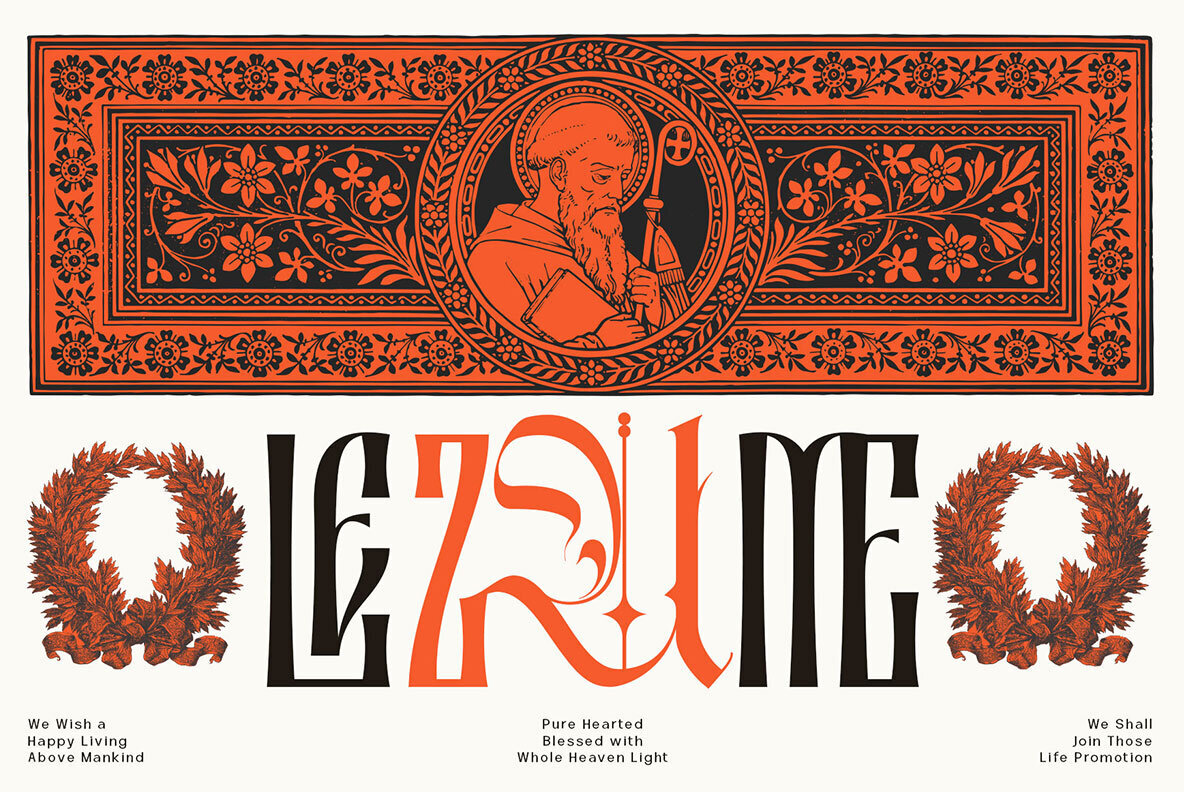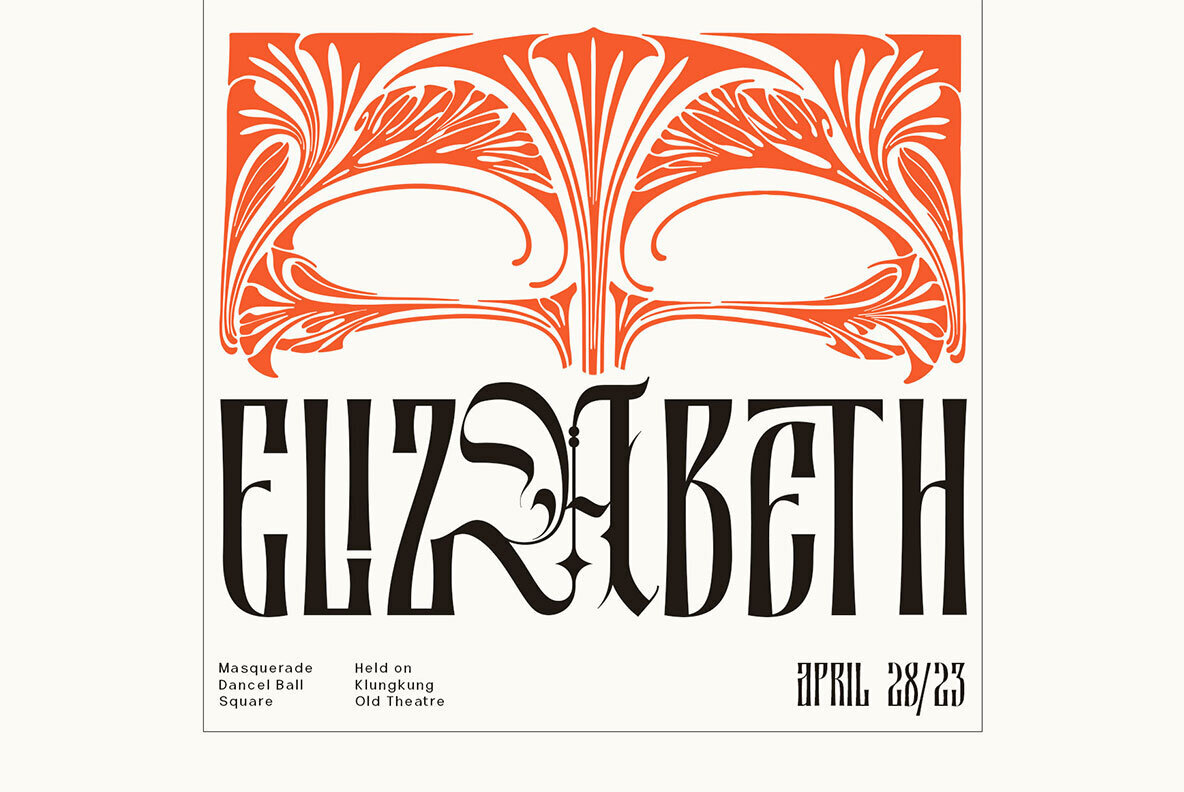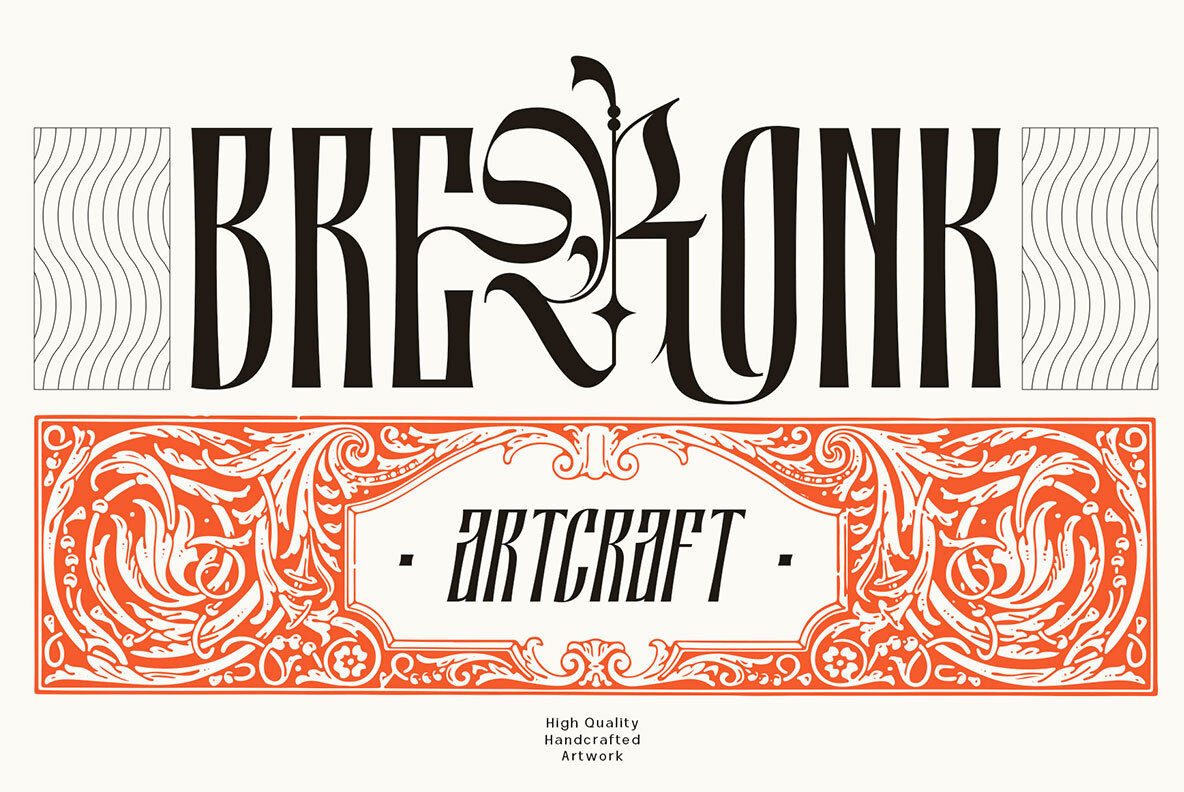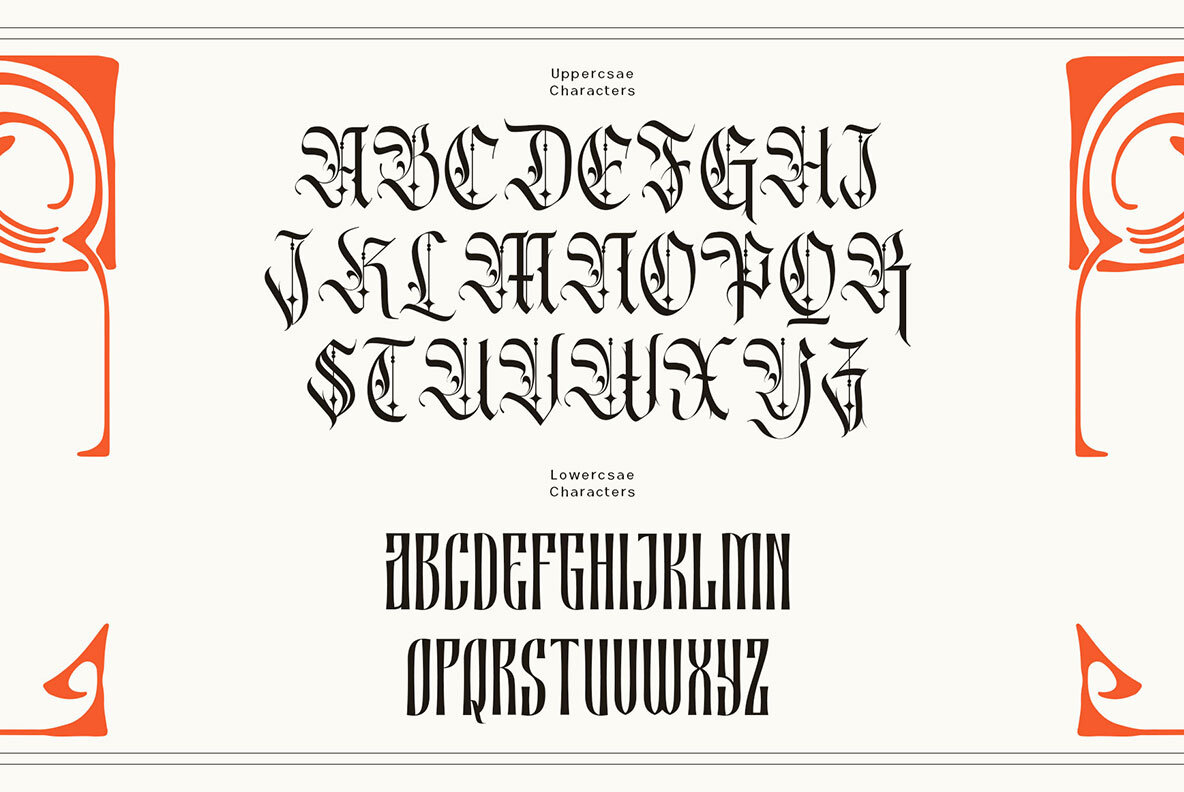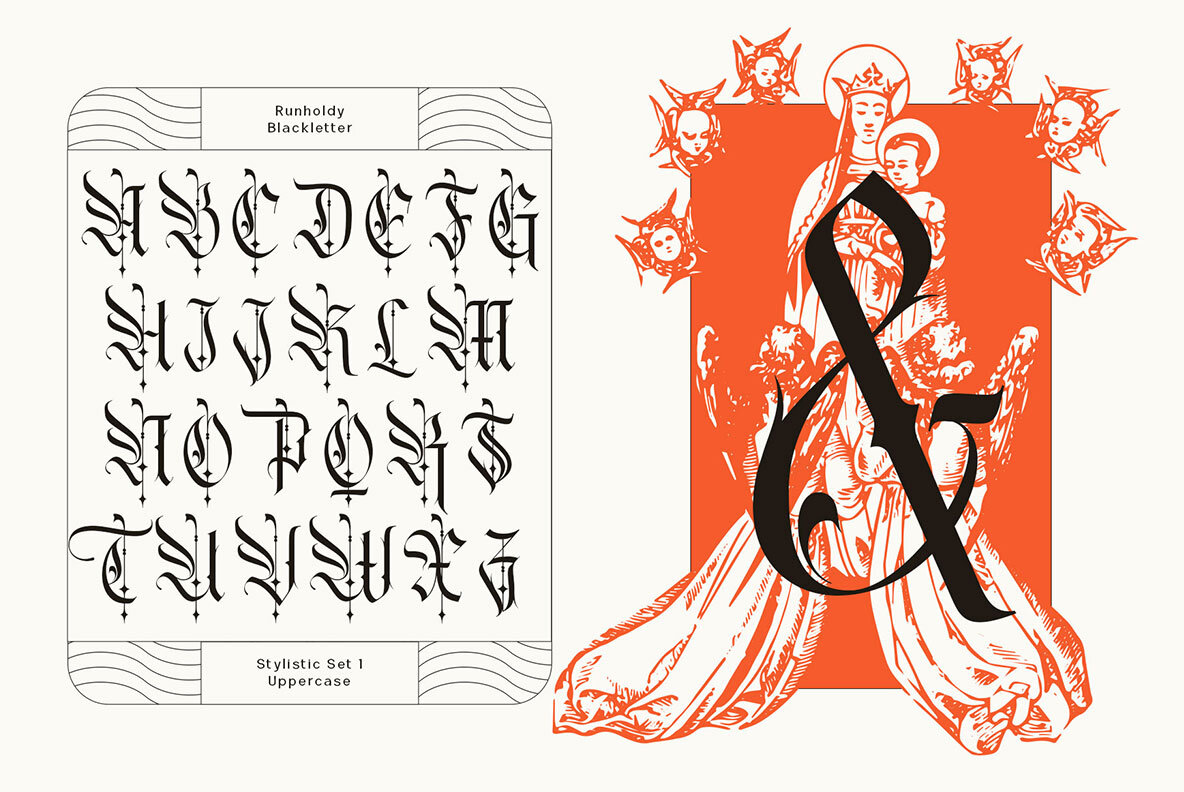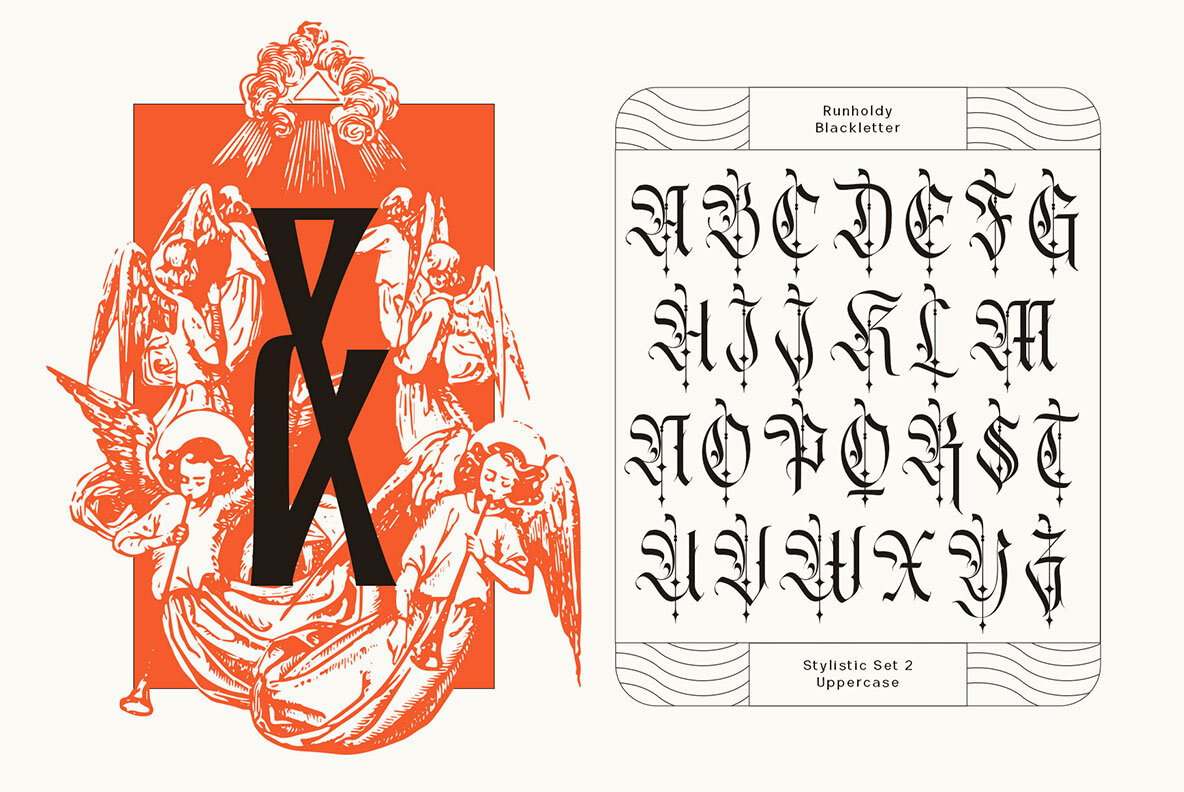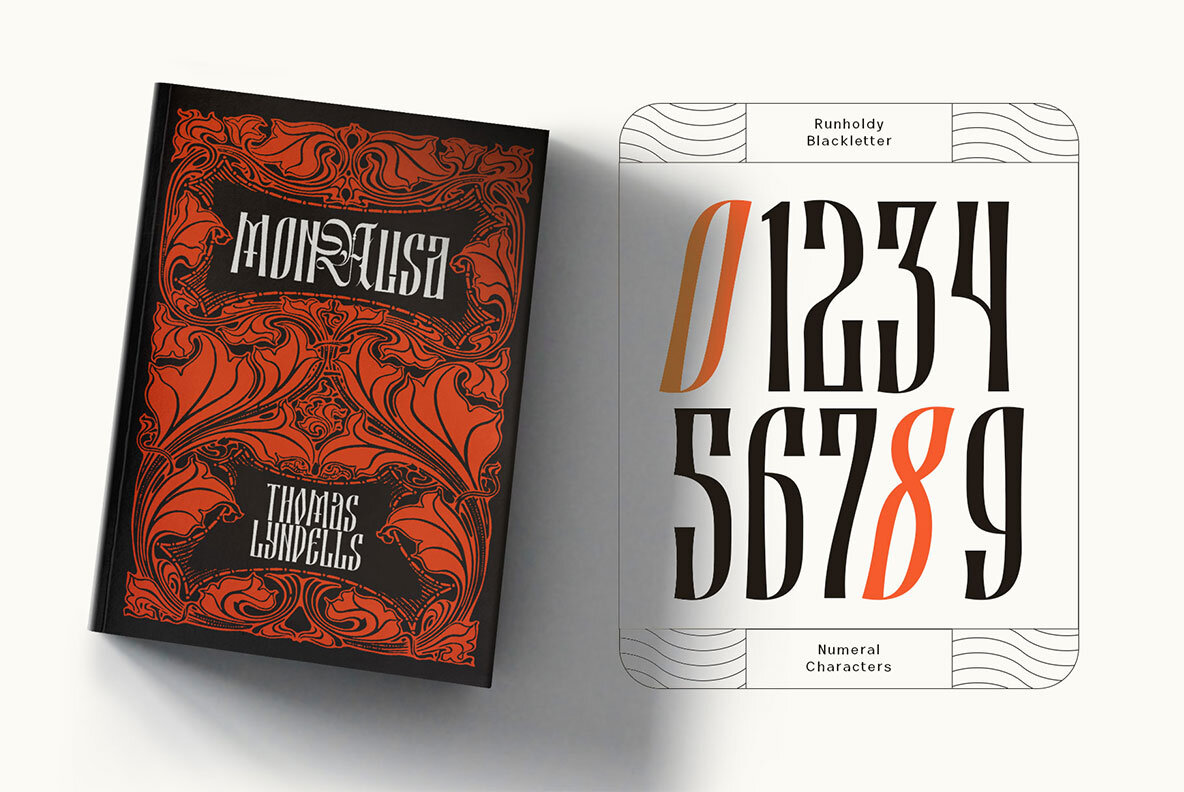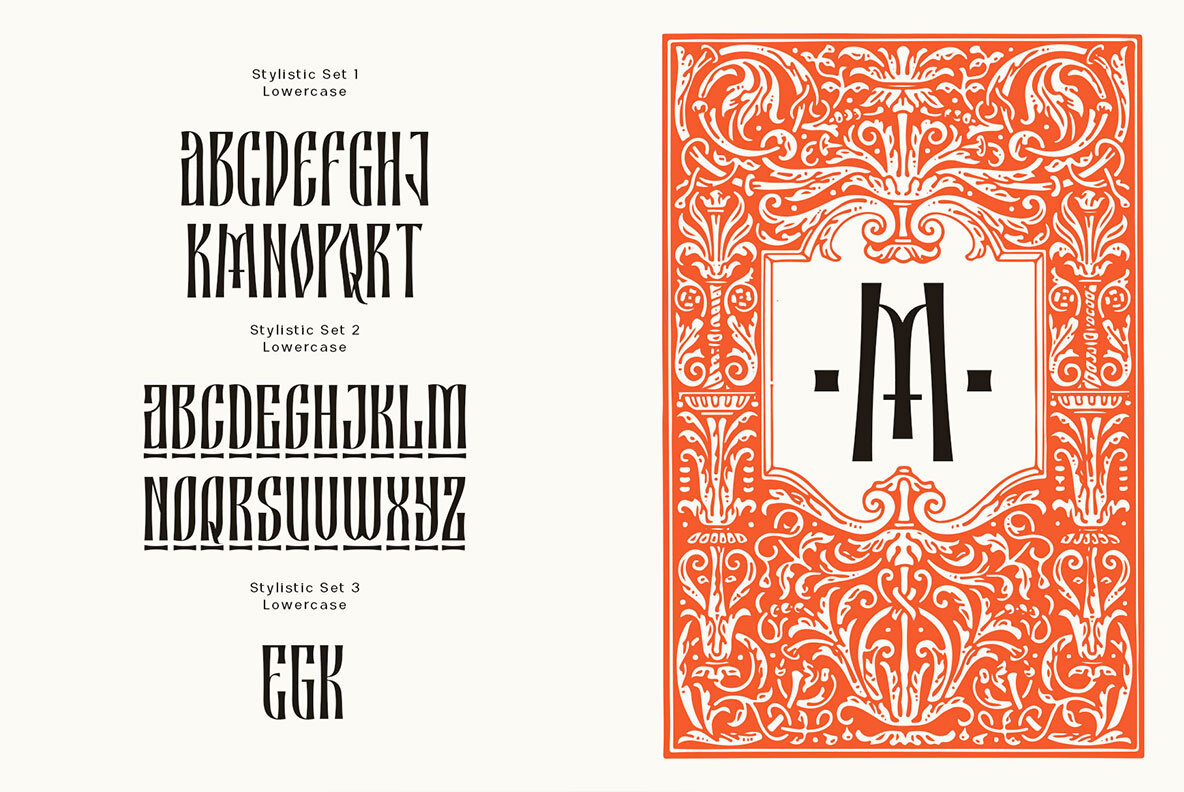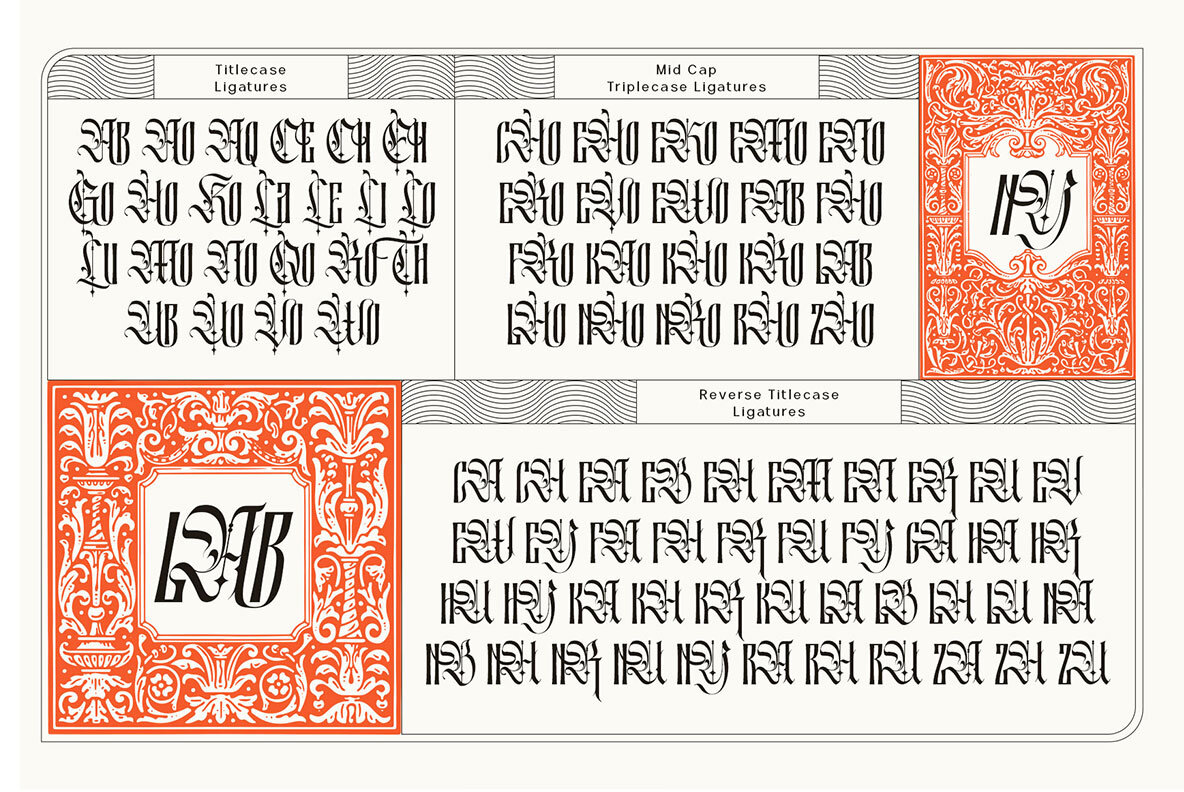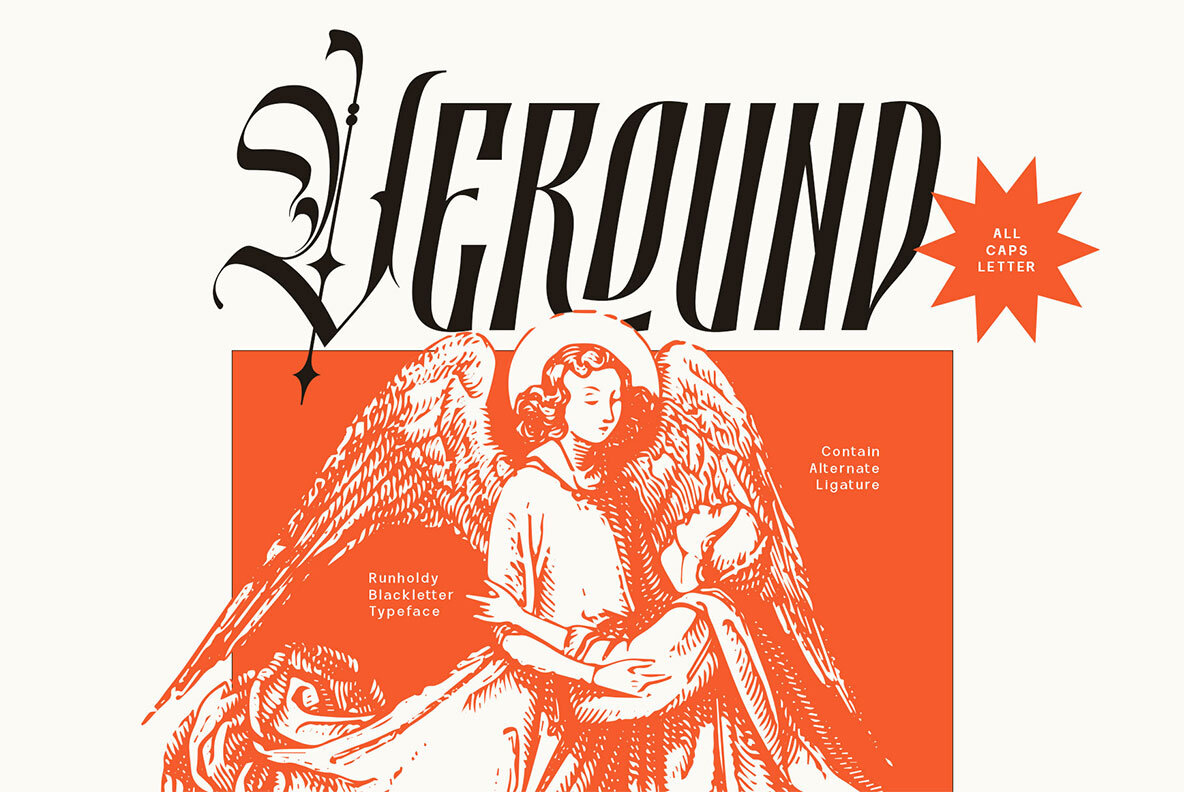
Runholdy Font
Runholdy Regular
Runholdy Italic
Runholdy is a unique font that merges dark beauty and modern style, combining elements of modern sans serif and blackletter styles for a striking and distinctive appearance. With 762 glyph characters, including rare ligatures and swashes, this font is perfect for creating bold, impactful designs. Supporting PUA unicode and multilingual characters, Runholdy is suitable for various languages and settings, ideal for logos, posters, and other graphics. Language Support includes Latin, Basic, Western European, Central European, South European, and Vietnamese. To use the beautiful swashes, use software that supports OpenType features such as Adobe Illustrator CS, Adobe Photoshop CC, Adobe InDesign, or Corel Draw; if your software doesn't have a Glyphs panel, you can install additional swashes font files.